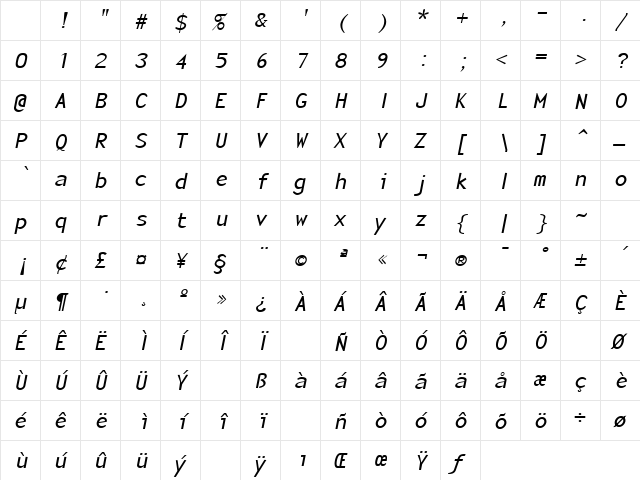
Zaire is a composed and adaptable typeface that performs quietly and consistently across a wide range of design contexts. The slanted form adds forward momentum and visual energy.
Pro Tip: Use Zaire for emphasis, pull quotes, and subheadings where its slanted energy can add rhythm to the layout.